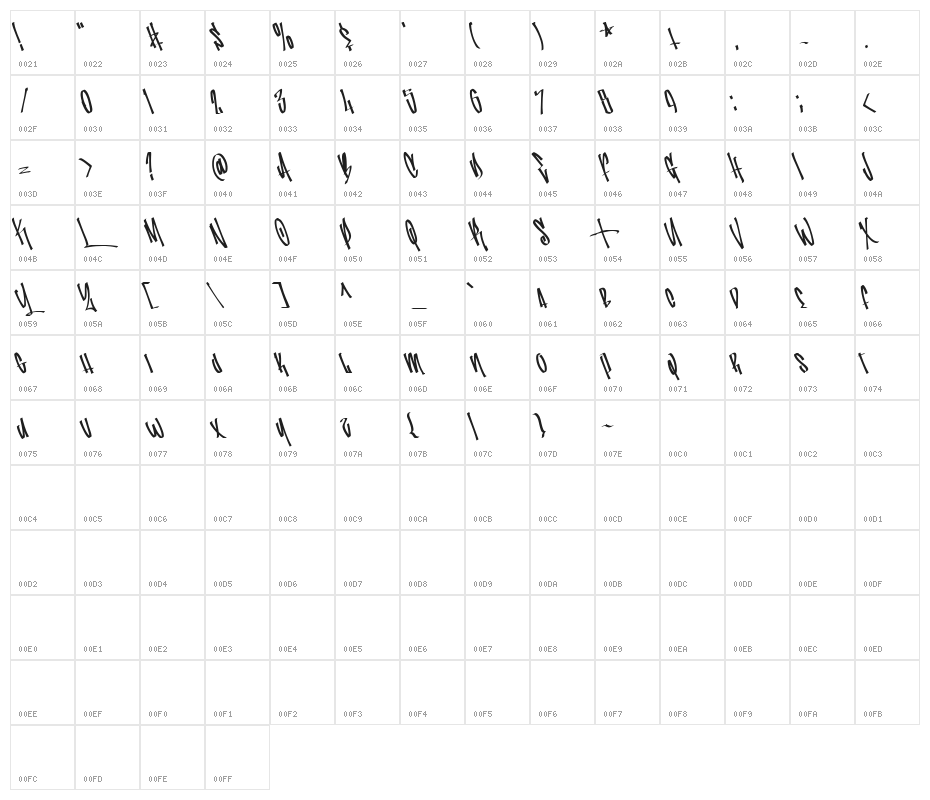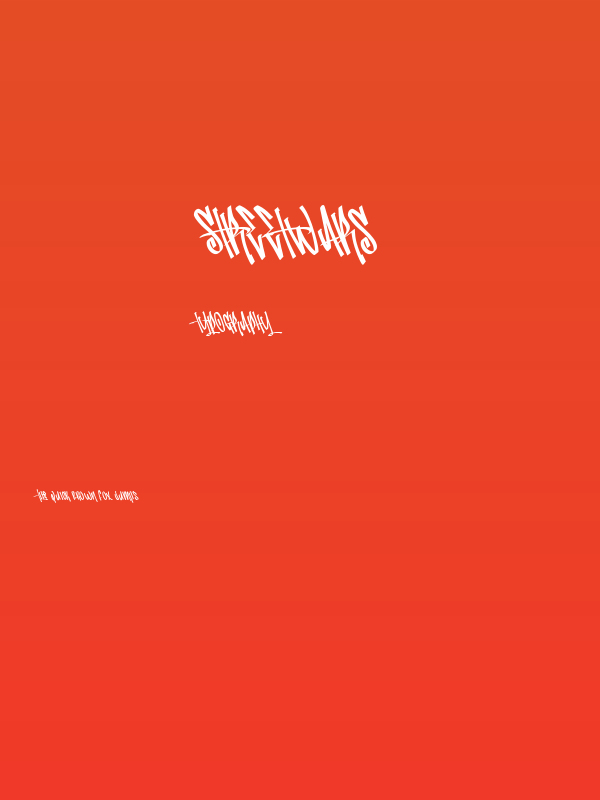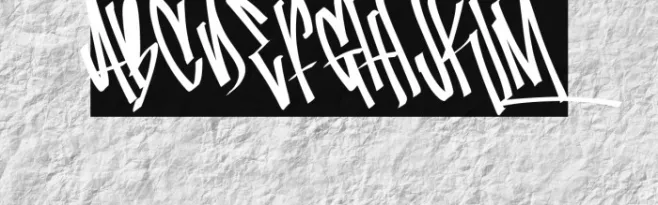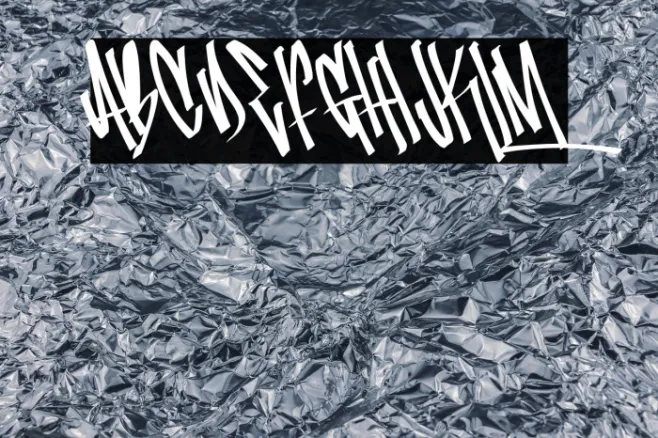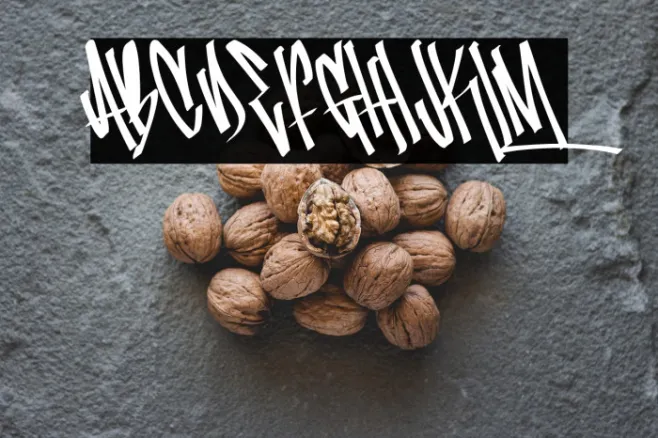
StreetWars Font
StreetWars Description
This font exudes a dynamic and edgy street art vibe, characterized by its bold, angular strokes and graffiti-inspired style. The letters are highly stylized, with exaggerated curves and sharp edges that create a sense of movement and energy. The uppercase and lowercase letters maintain a consistent aesthetic, while the numerals and special characters integrate seamlessly into the overall design. This font's unique flair makes it stand out, capturing attention with its rebellious and urban feel.
| Overall Style | Urban, Graffiti, Edgy |
| Use Case | Logos, Posters, Branding |
| Proposed Projects | Ideal for streetwear branding, music album covers, urban event posters, and graffiti art projects. |